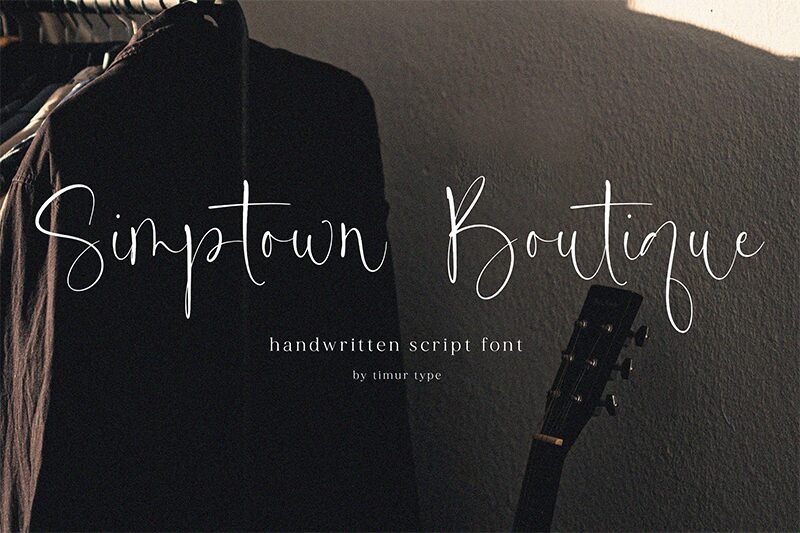
Simptown Boutique
Simptown Boutique font by Timur Type is a free light signature script font. Built around wispy, high-reaching ascenders and airy loops, it carries a pencil‑grain texture that feels handwritten rather than polished. The strokes dance on a gently uneven baseline, with roomy spacing that lets every flourish breathe—elegant without tipping into fussiness.
Using Simptown Boutique, headlines gain a soft, boutique vibe that shines on brand marks, wedding stationery, product labels, café menus, social posts, and packaging. Its relaxed rhythm reads clearly at medium to large sizes, while the slender contrast keeps it graceful on screen and print. Pair this free font with a quiet geometric sans for body copy to let the signature lines take center stage.